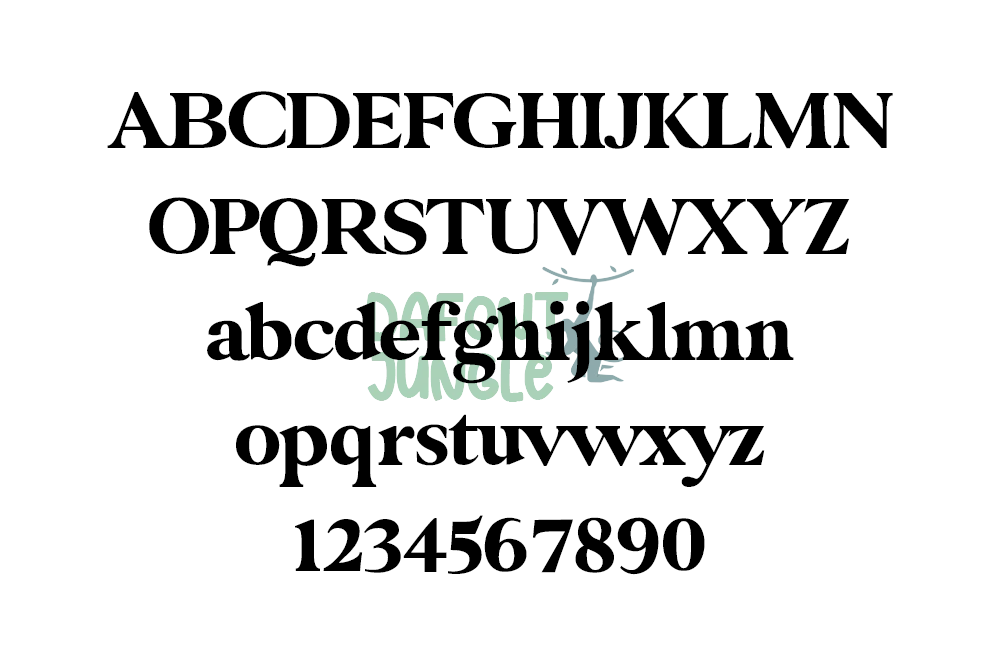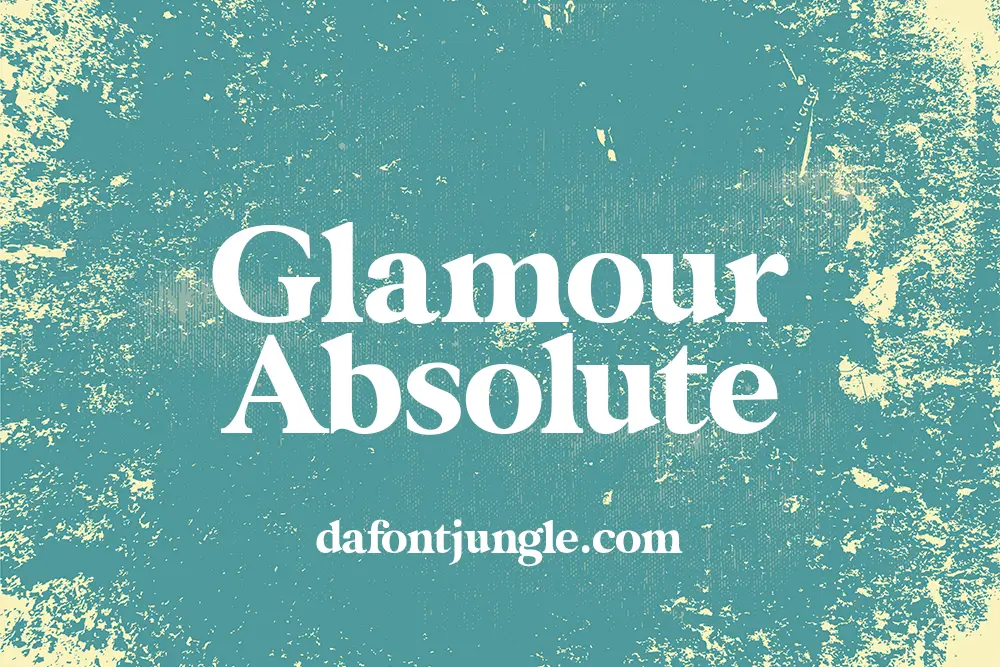
Glamour Absolute – Bold Serif with Modern & Vintage Styles
Glamour Absolute is a bold serif font with a unique twist—it blends both modern chic and vintage retro styles into one versatile typeface. Designed by Nicky Laatz, this font lets you switch effortlessly between two looks, making it perfect for a wide range of design projects.
A Two-Faced Beauty: Modern or Vintage
Want a vintage look? Just turn on OpenType features and explore a wide variety of alternate letters and ligatures. Mix and match characters to create anything from subtle retro vibes to full-on vintage flair.
Prefer a modern, clean look? Simply type with the default characters. Adjust letter spacing to add even more sophistication to your design.
Perfect For
– Magazine covers and fashion layouts
– Wedding invitations and elegant stationery
– Retro posters and ads
– Branding, packaging, and logo design